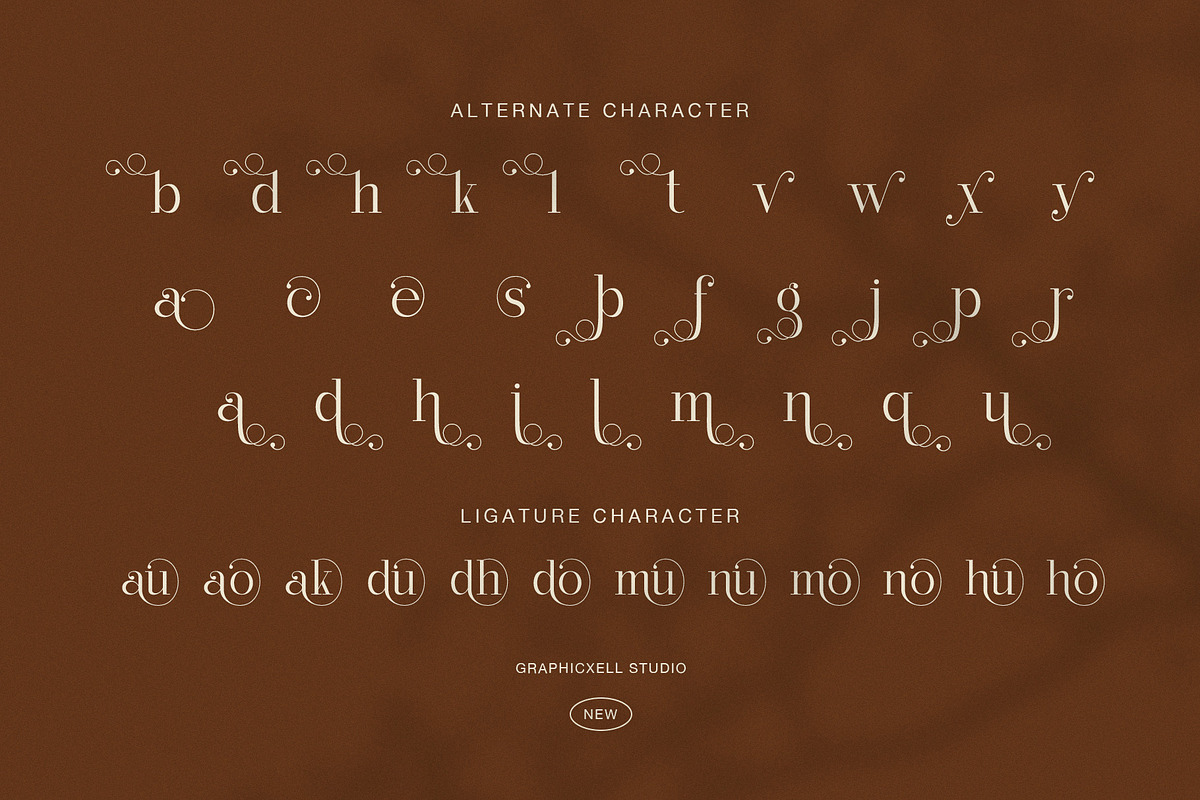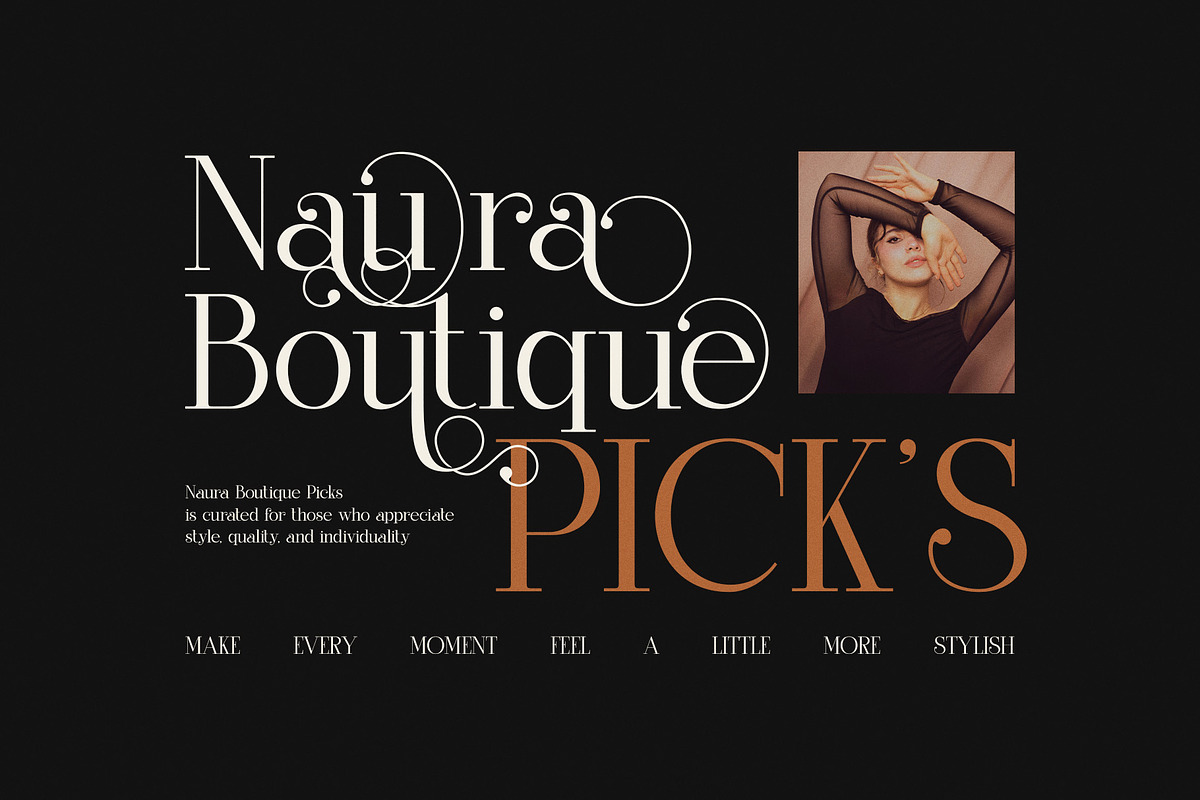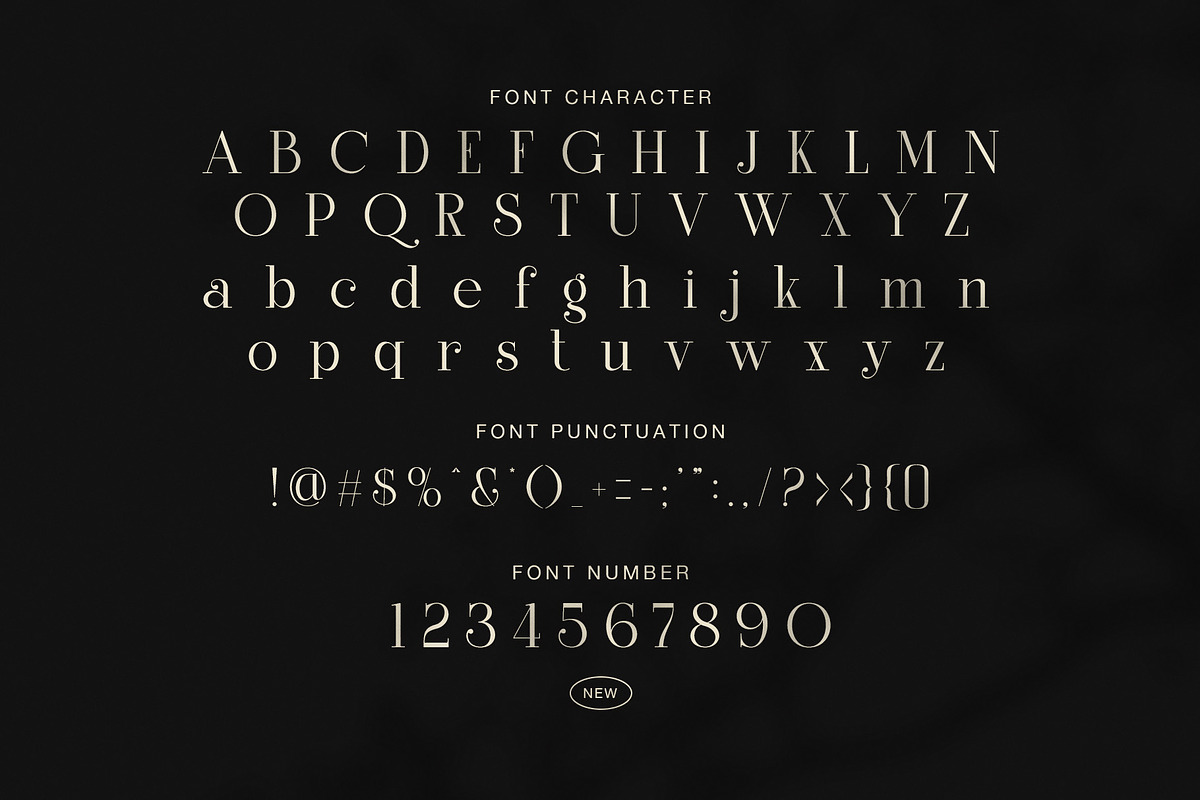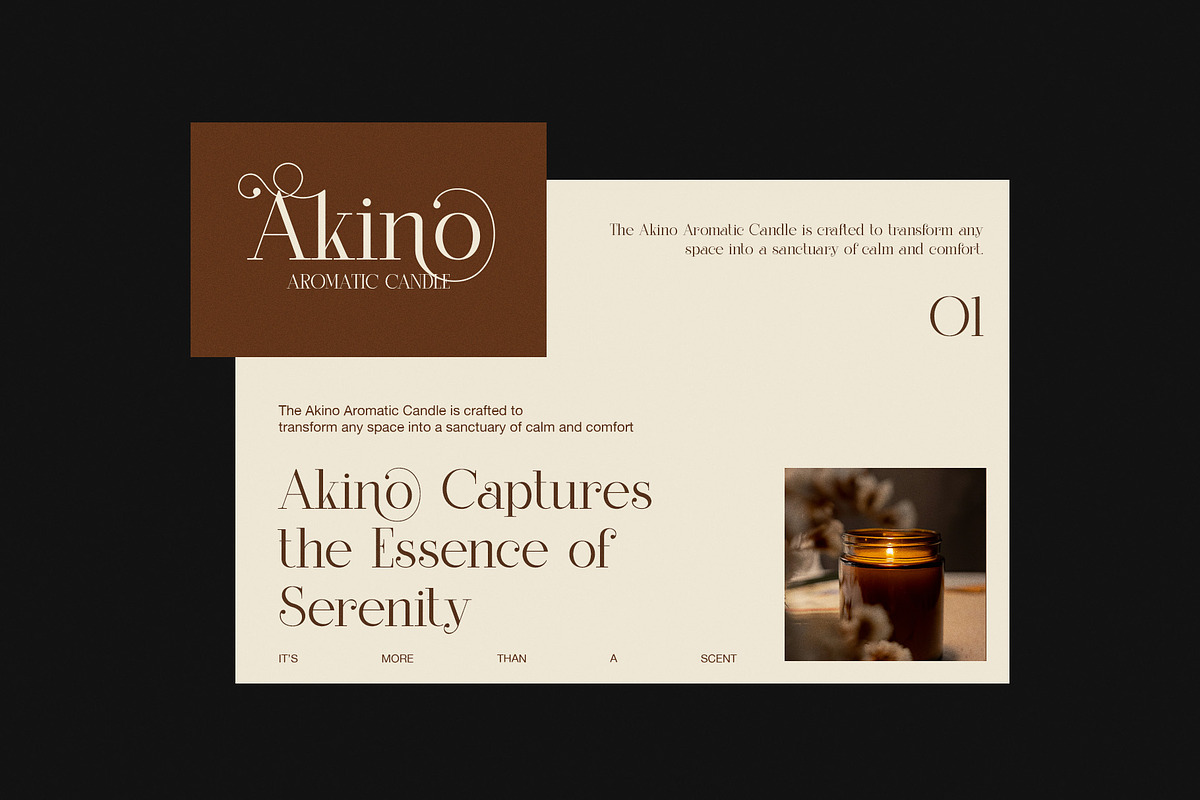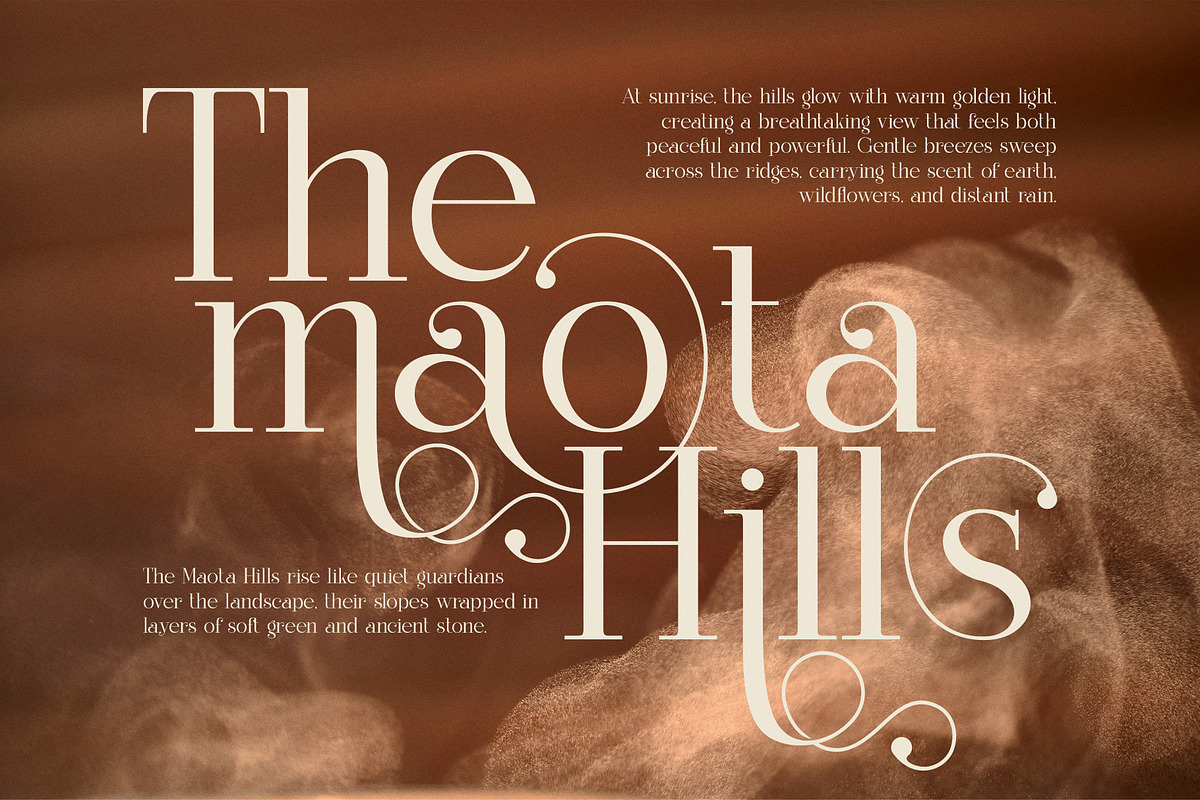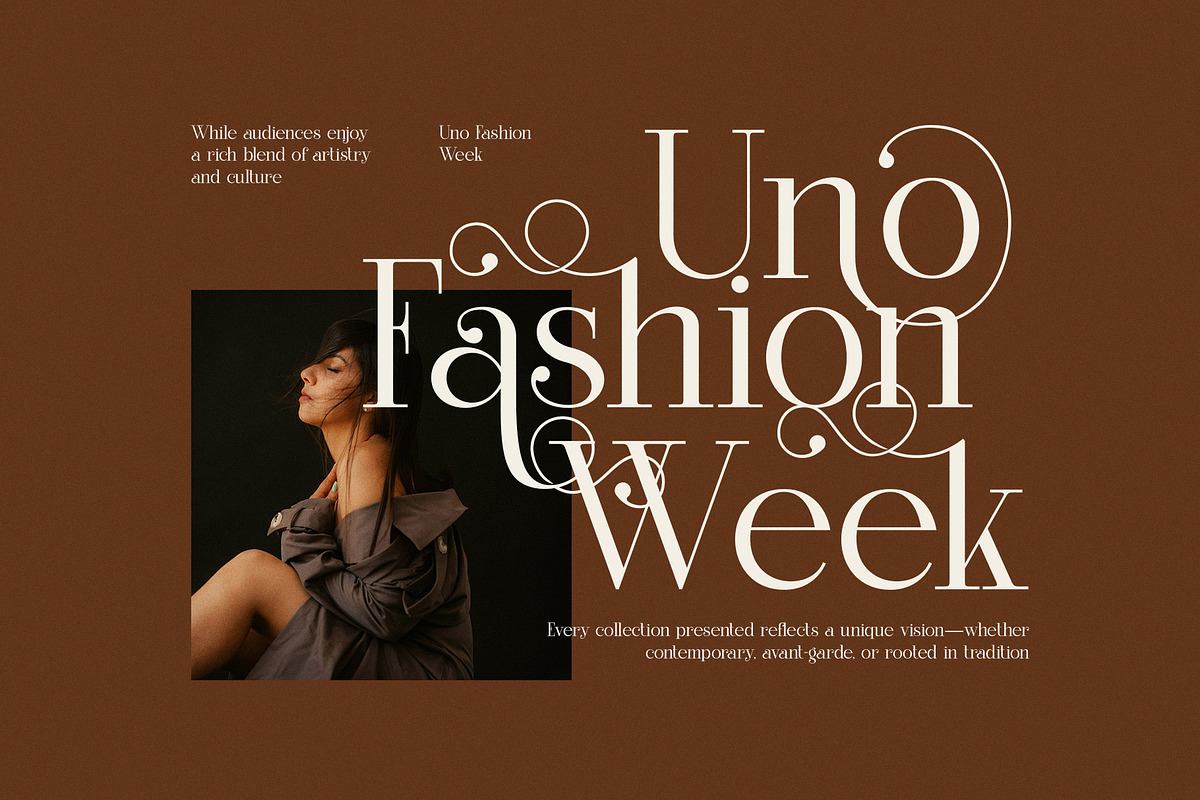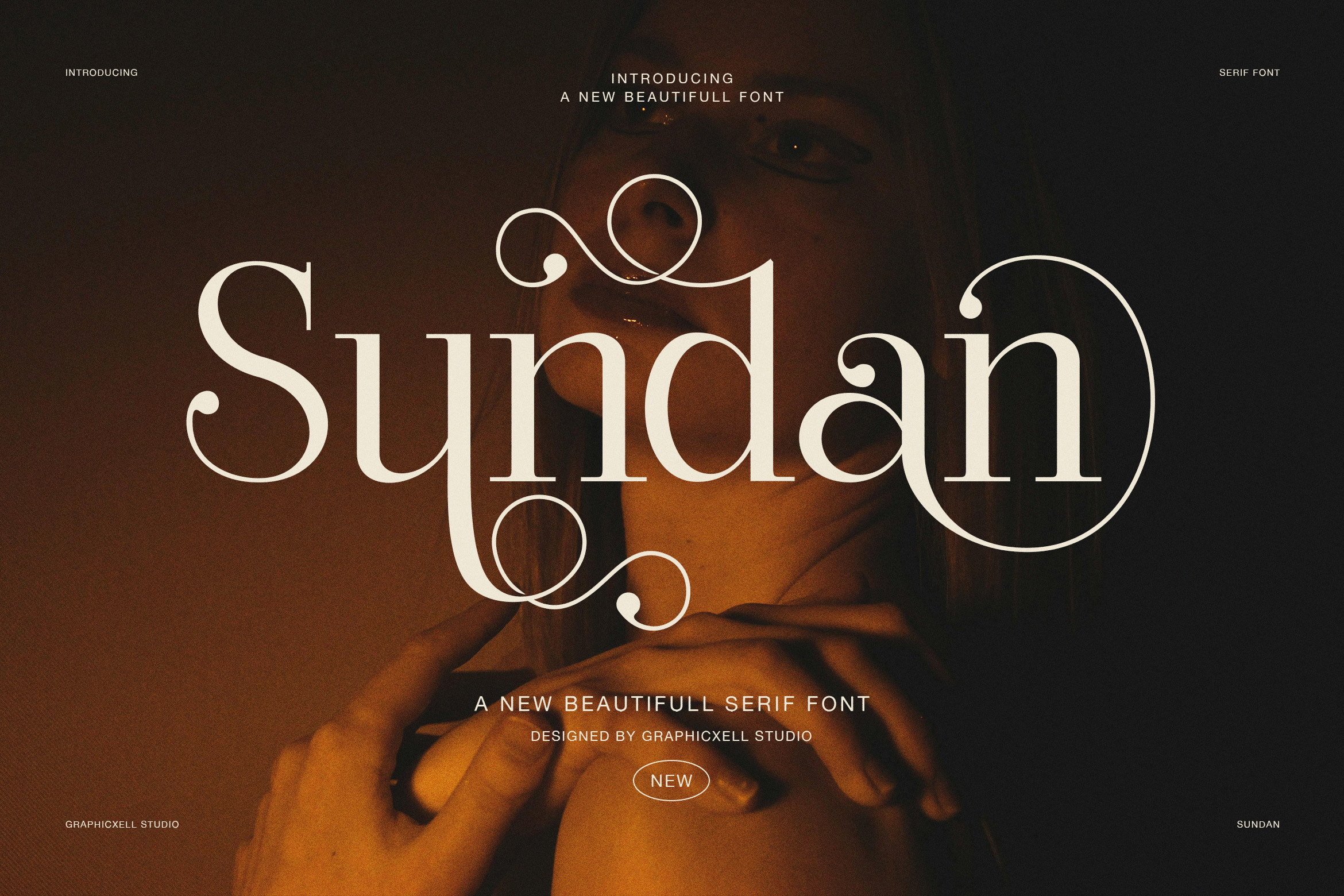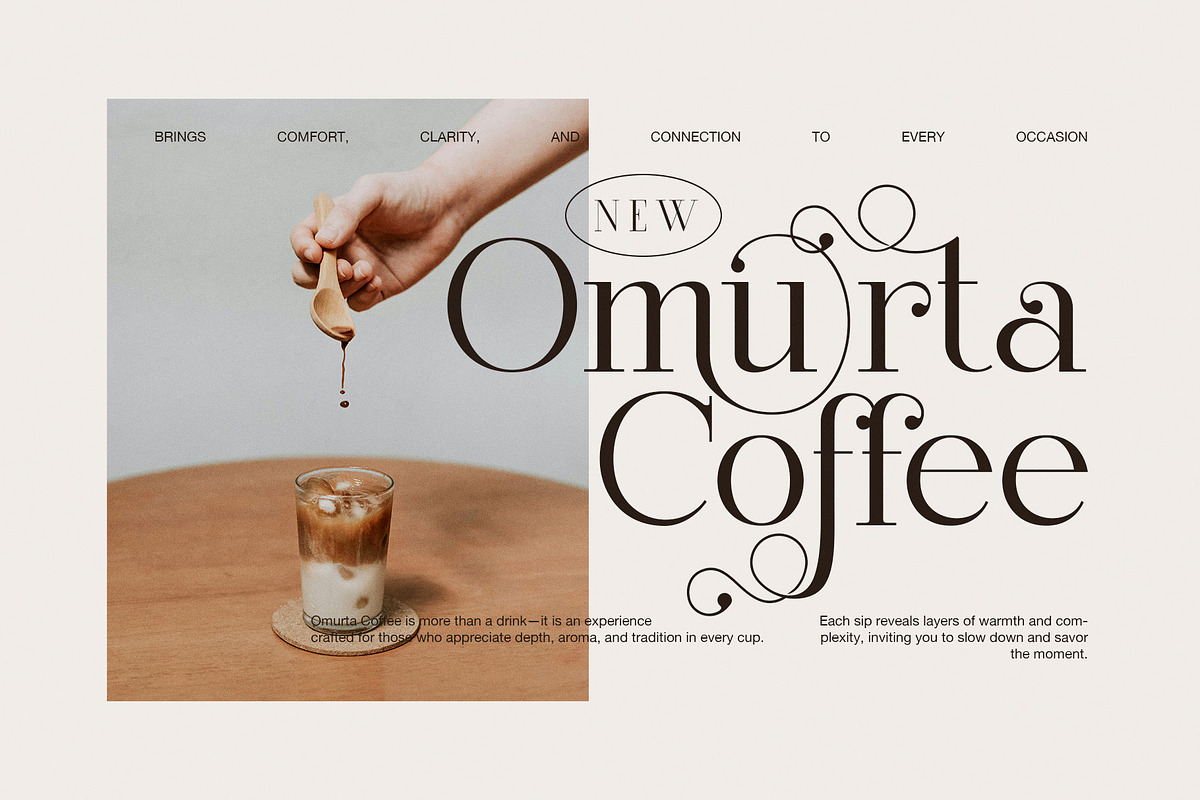
Sundan Elegant Luxury Serif Font
Sundan is an elegant luxury serif font designed to express beauty, grace, and quiet confidence. Its refined contrast, flowing curves, and decorative swashes create a sophisticated presence that instantly elevates any design. At the same time, the letterforms remain clean and readable, so your message feels both artistic and clear.
Unlike rigid classical serifs, Sundan introduces softness and movement. The extended terminals and graceful loops add personality without becoming overwhelming. As a result, headlines feel expressive, while body text still looks balanced and calm. Moreover, the spacing allows each character to breathe, which improves legibility across different layouts.
This font works beautifully for high-end branding and creative storytelling. For instance, it shines in fashion campaigns, boutique logos, perfume packaging, wedding stationery, café menus, and editorial spreads. In addition, it performs well on digital platforms, making it ideal for websites, social media graphics, and advertising visuals.
Sundan also includes alternate characters and elegant ligatures. These features help designers craft unique wordmarks and refined typography with ease. Therefore, you can create designs that feel custom and memorable without extra effort.
Elegant high-contrast serif style
Decorative swashes and smooth curves
Clean, readable letterforms
Numbers and punctuation included
Stylish alternates for creative layouts
Beautiful ligatures for seamless text
Perfect for luxury branding and editorials
Beyond aesthetics, Sundan communicates emotion. It suggests refinement, warmth, and timeless style. Consequently, it suits projects that need a premium tone without appearing cold or distant.
Overall, Sundan is more than a typeface. It is a visual signature that adds elegance and depth to your work. If you want typography that feels luxurious, graceful, and modern, Sundan is a powerful choice.